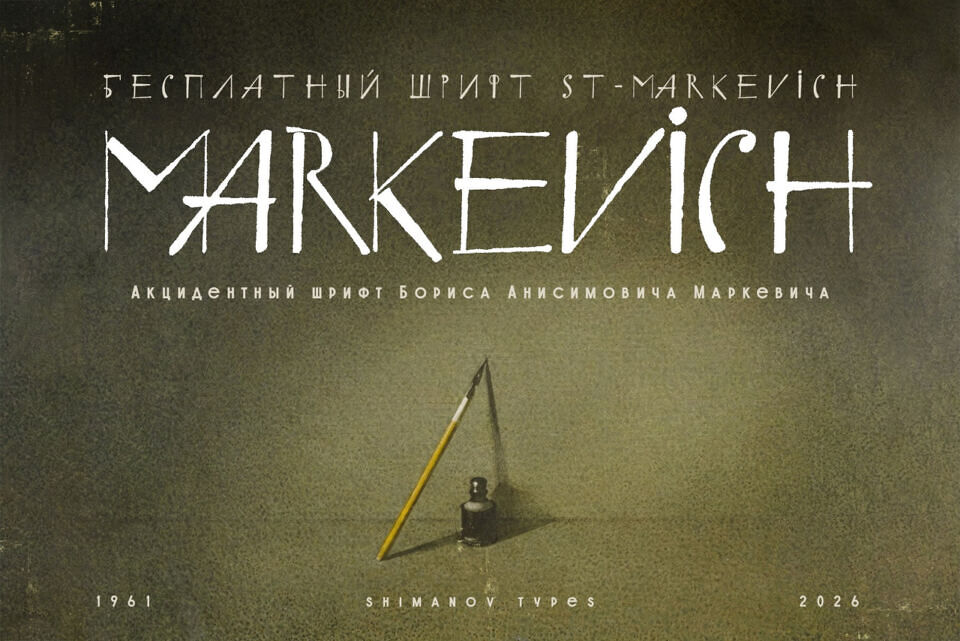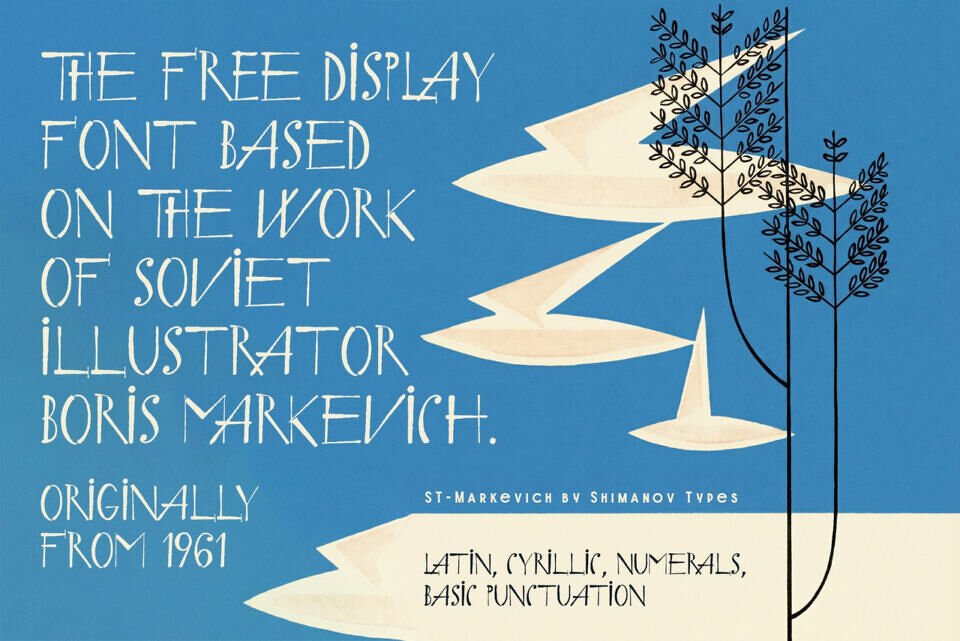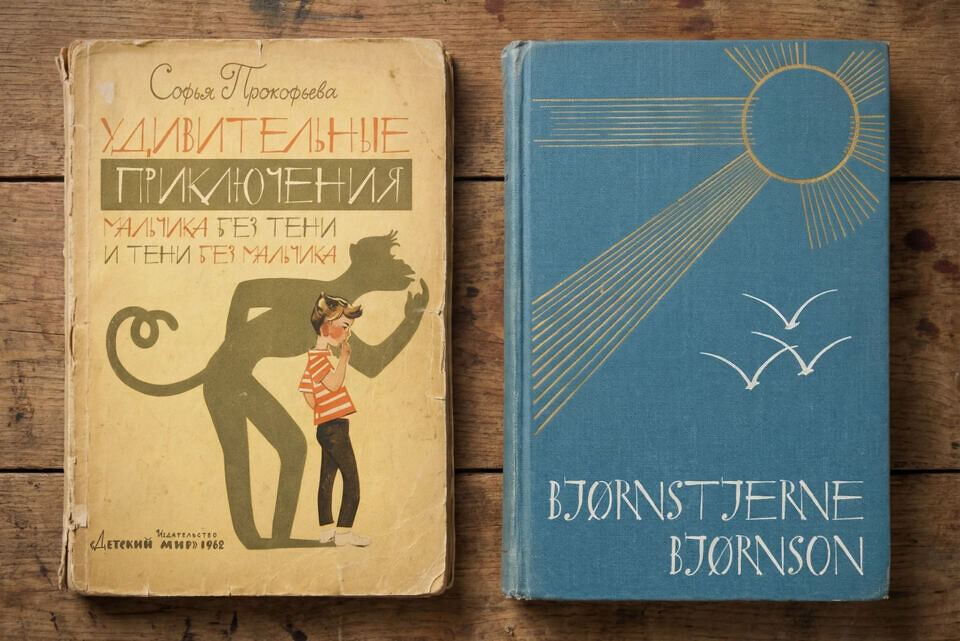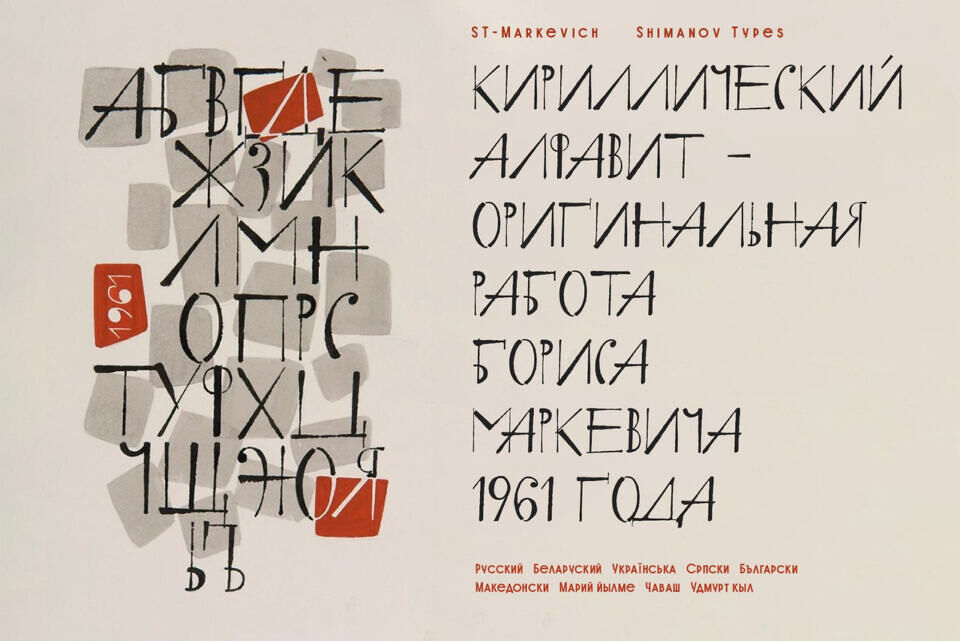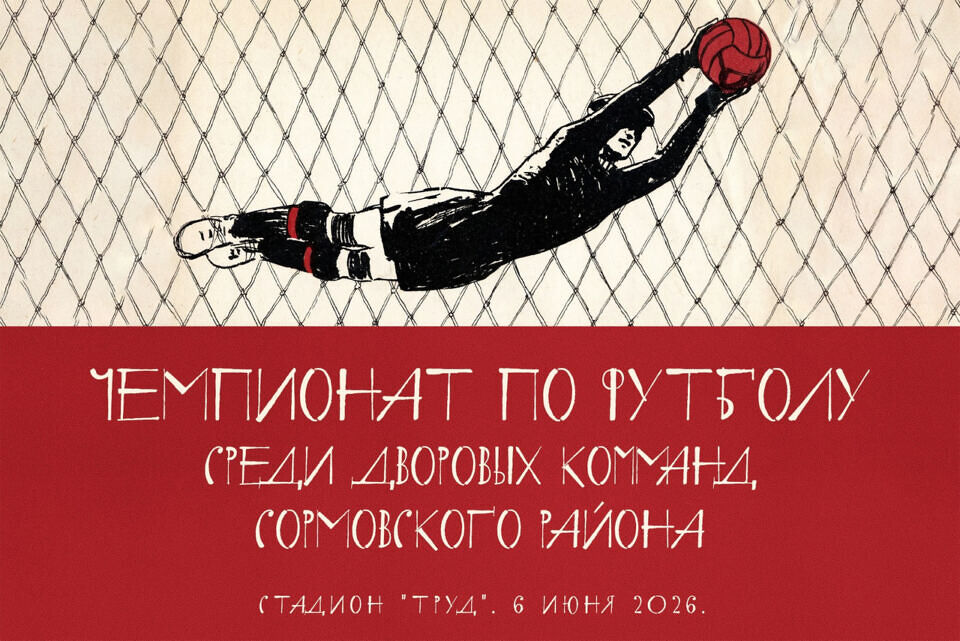
The ST-Markevich typeface is a digital reconstruction of a 1961 work by the renowned Soviet artist and illustrator Boris Anisimovich Markevich (1925–2002). As a prominent figure in the “synthetic” book graphics movement of the late 20th century, Markevich’s style—seen in his illustrations, book covers, half-titles, and tailpieces—is instantly recognizable.
ST-Markevich captures the essence of the 1960s Soviet “Thaw” era. It is deeply infused with the spirit of Markevich’s books, evoking a sense of mid-century nostalgia, adventure, and childhood wonder. Ideal for creative projects, this font is perfect for artistic displays, publications, film titles, and animations. The font includes discretionary ligatures to enhance its artistic flair. It is highly recommended to apply manual kerning for the best visual results.